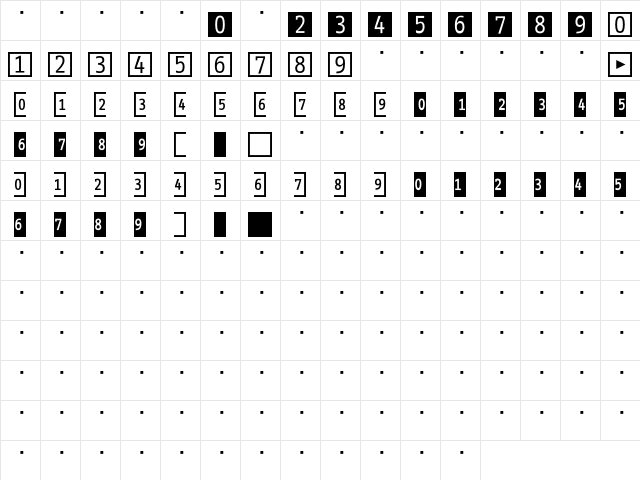
InfoOffice NumbersTwo
Design Context for InfoOffice Typeface
InfoOffice is a composed and adaptable typeface that performs quietly and consistently across a wide range of design contexts.